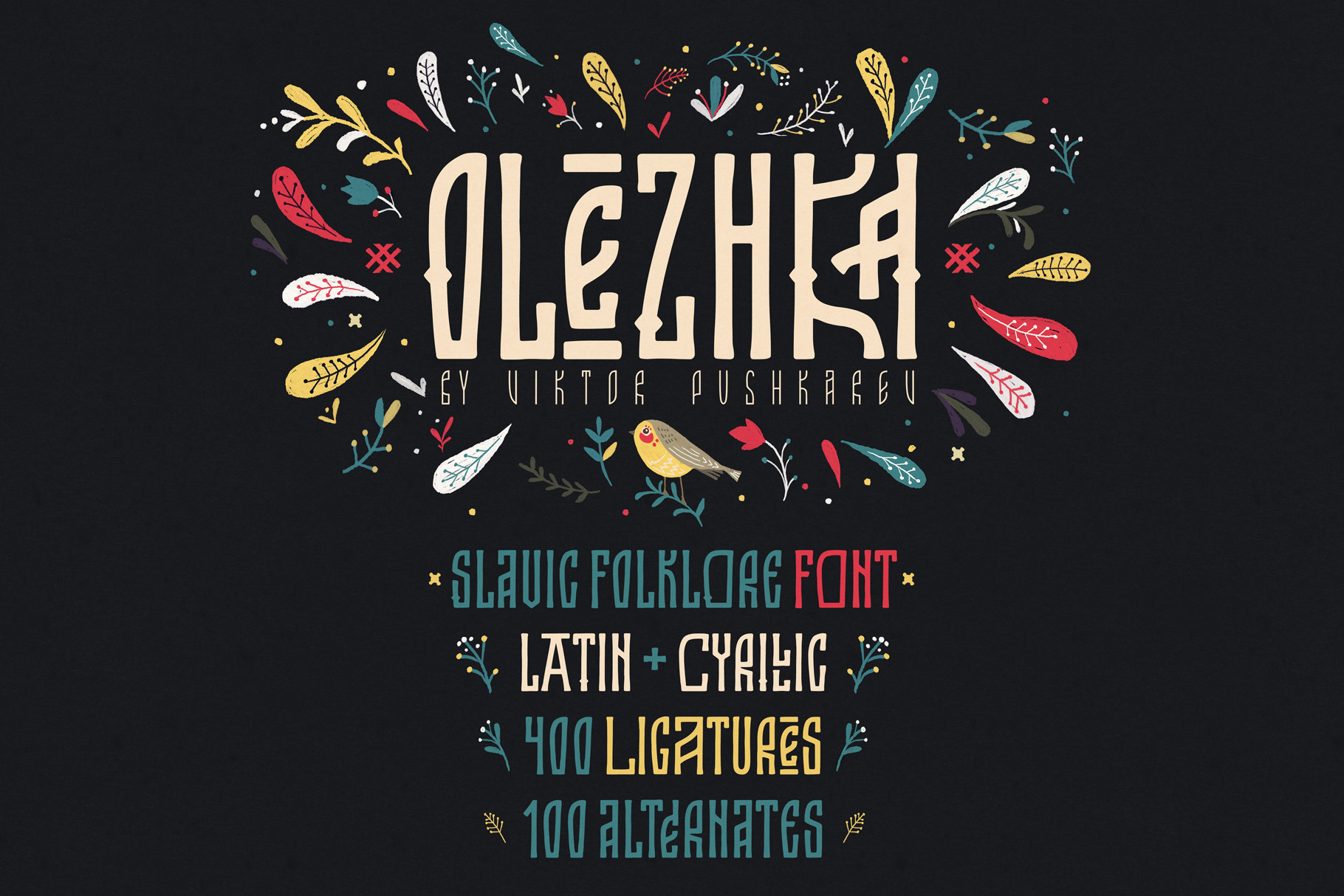
Font "Olezhka"
Font "Olezhka" is a display font in the style of Slavic Vyaz. This font is made to resemble hand-made letters, and it's packed with a wide selection of ligatures and alternatives. This font is a playground with letters, ligatures, and alternates and is really easy to use.
Olezhka is perfect for titles, print products, food and alcohol packaging, and other graphic tasks. It makes the design process a bit more enjoyable and creative.